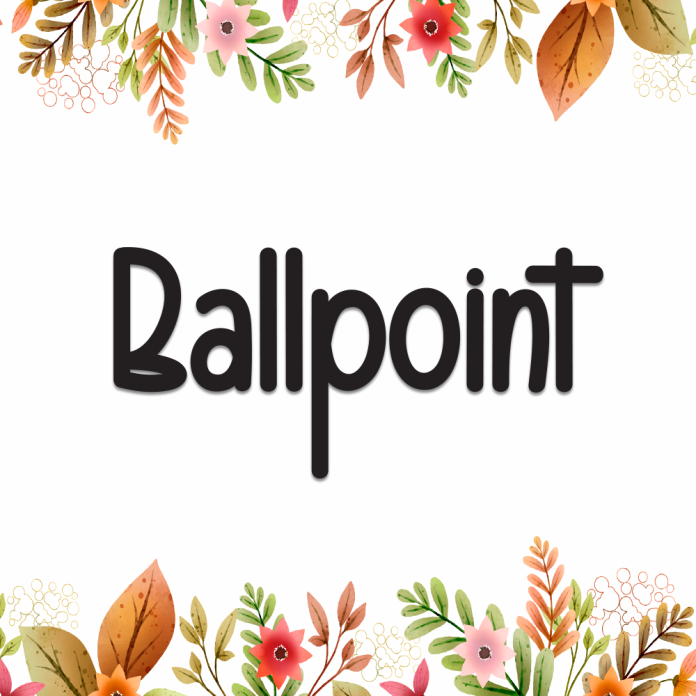
Ballpoint is a quirky and playful display font that mimics the look of ink from a real ballpoint pen. Its bold and imperfect strokes add a touch of personality and spontaneity to any creative project.
Great for poster headlines, back-to-school designs, doodle-themed graphics, and anything that needs a handwritten edge with display impact.
Bold and legible with natural pen pressure texture
Hand-drawn charm with a clean finish
Eye-catching and fun
Make your designs pop with the authentic and friendly vibe of Ballpoint.